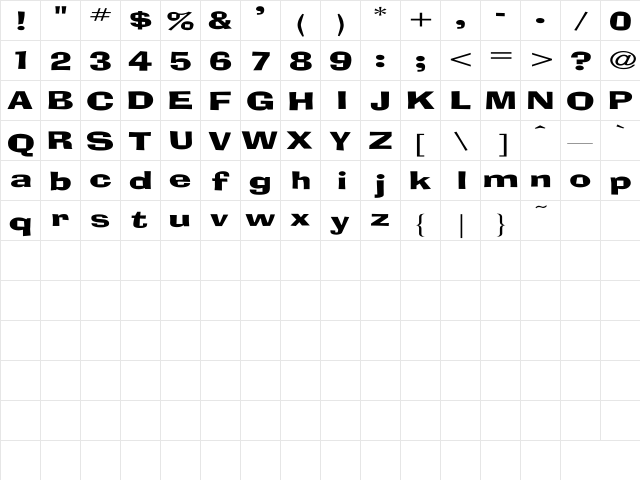
AdLib Ex Regular Font Preview
AdLib Ex Regular
Design Context for AdLib Ex Typeface
AdLib Ex is a composed and adaptable typeface that performs quietly and consistently across a wide range of design contexts.